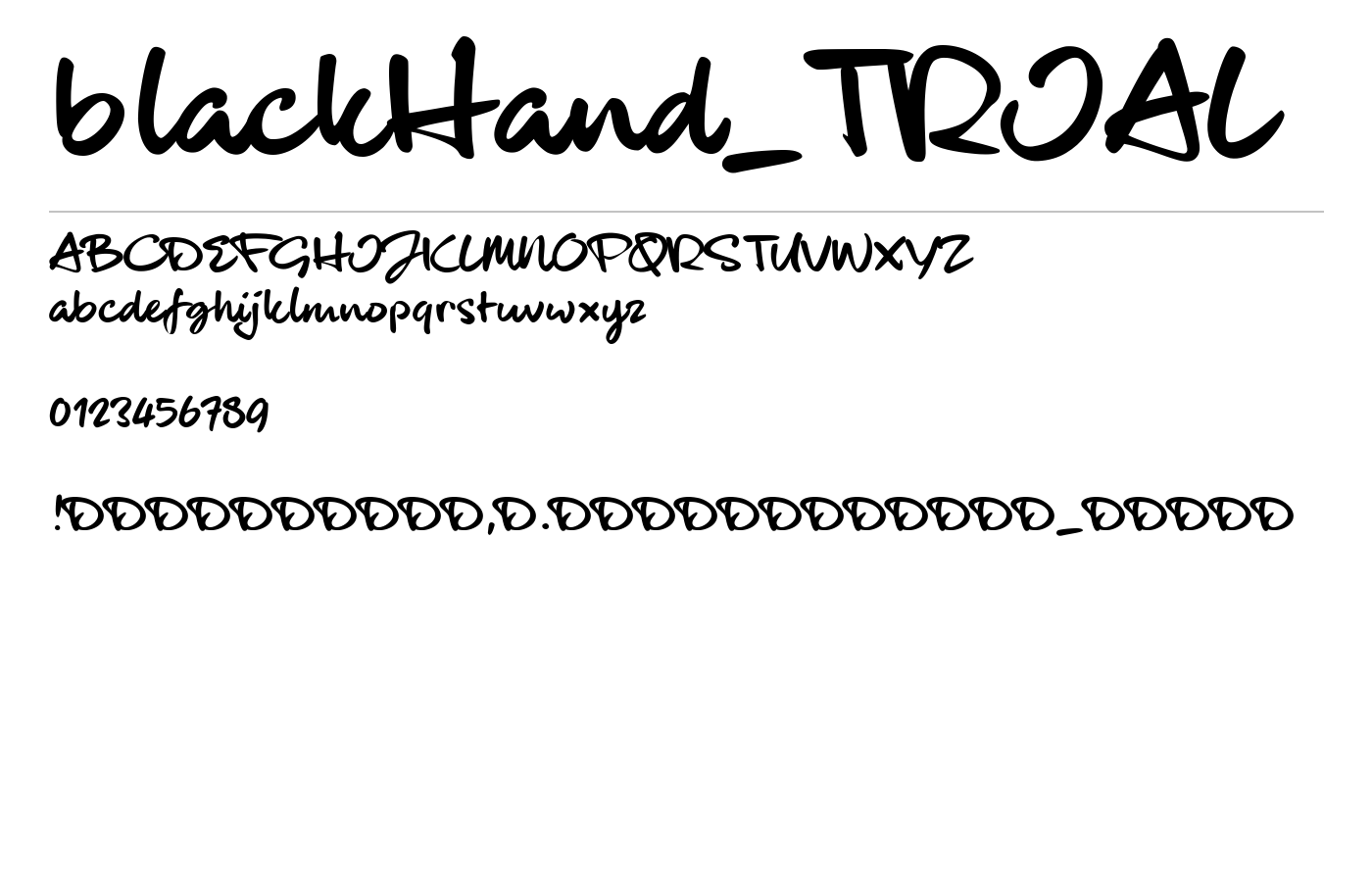
BlackHand_TRIAL is a casual, handwritten script font with a lively and expressive style, featuring smooth, rounded strokes and a consistent medium weight. Its characters exhibit a natural flow with a slightly condensed width and a friendly, informal personality, making it perfect for creative projects, playful branding, and eye-catching headlines that need a personal touch. This font works well where a warm, approachable vibe is desired, such as invitations, logos, or social media graphics.
blackHand_TRIAL Font
About blackHand_TRIAL Font
| Font family | blackHand_TRIAL Font |
| Designer | JJW van der Ham |